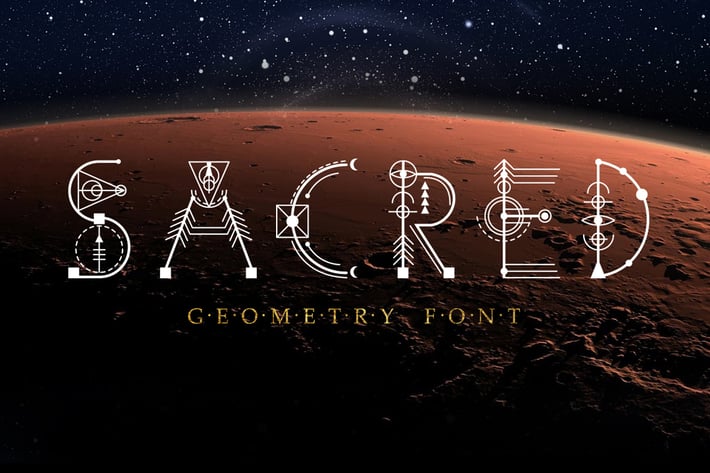
Sacred Geometry Font
This is a unique decorative font based on the sacred symbols. It is very suitable for creating labels, titles, branding, also it has a great potential to design websites, different products, printing on any material.